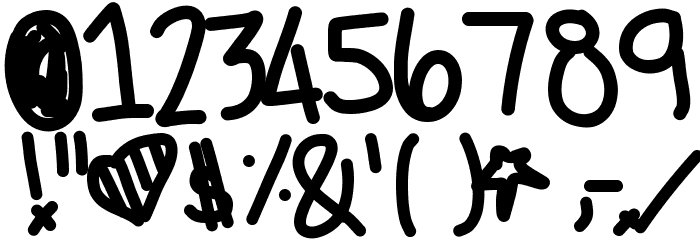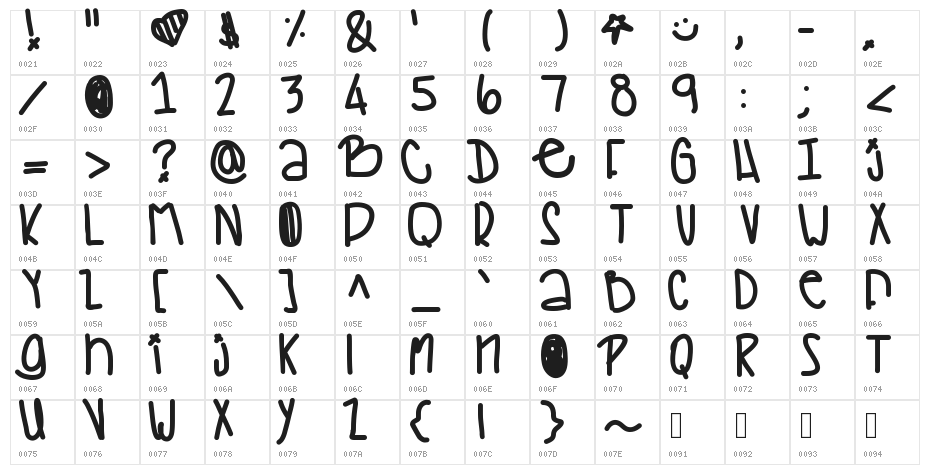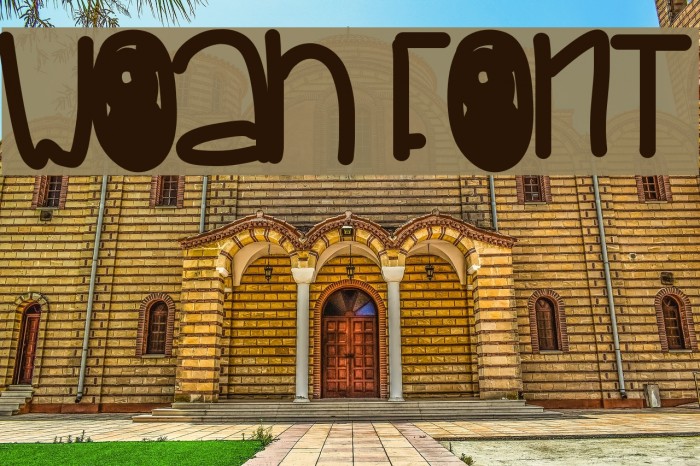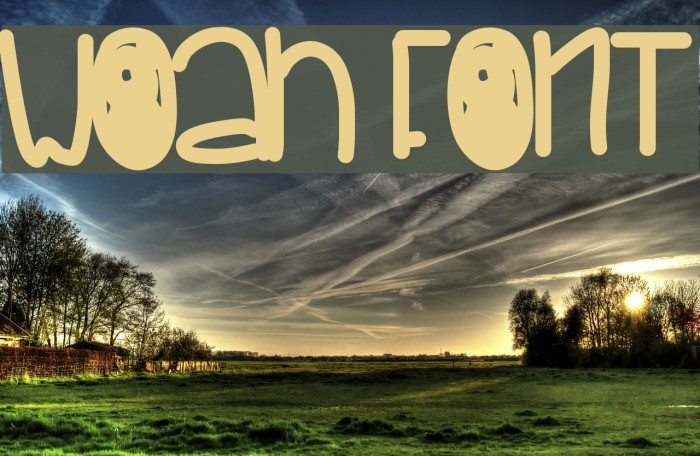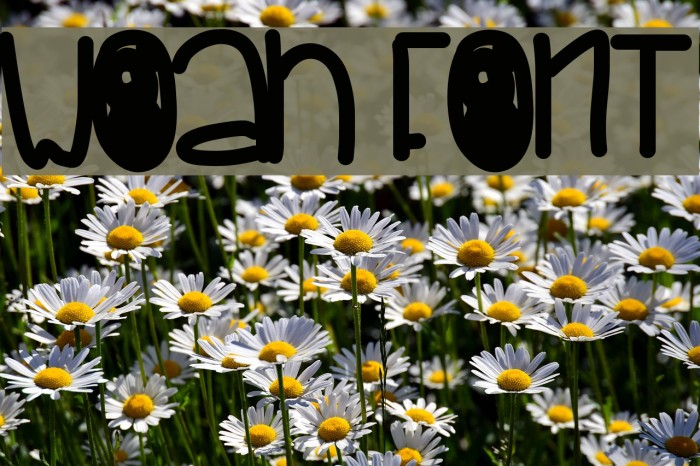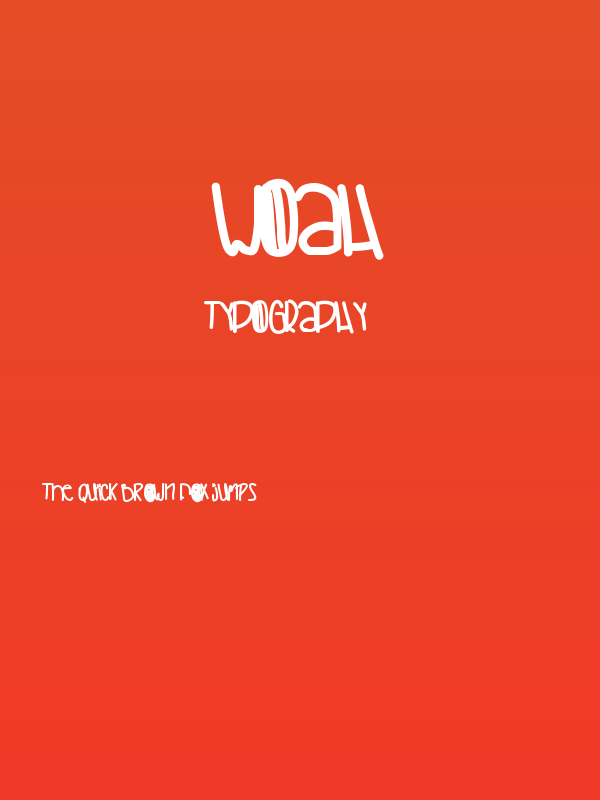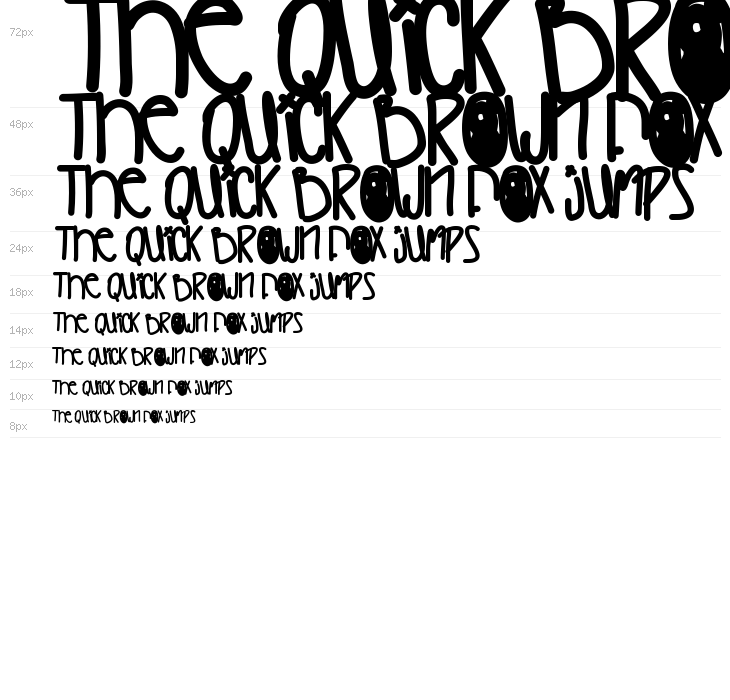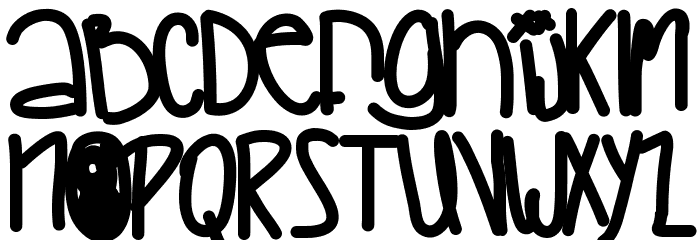
Woah Font
Woah Description
This font features a playful and casual handwritten style, characterized by its bold and rounded letterforms. The uppercase and lowercase letters maintain a consistent flow, with slightly exaggerated curves and loops that add a whimsical touch. The numbers and special characters follow the same playful aesthetic, making them easily recognizable and cohesive with the alphabet. The overall appearance is informal and friendly, suitable for projects that require a personal and approachable feel.
| Proposed Projects | Ideal for children's books, greeting cards, playful branding, and social media graphics. |